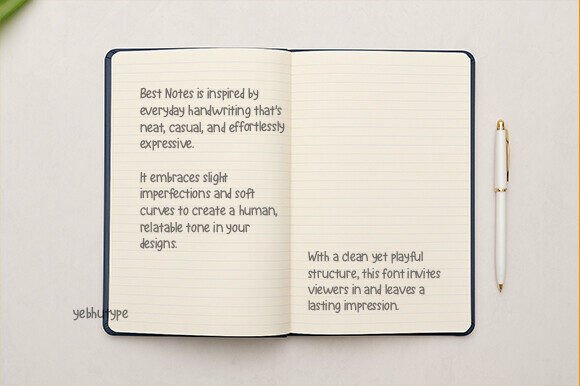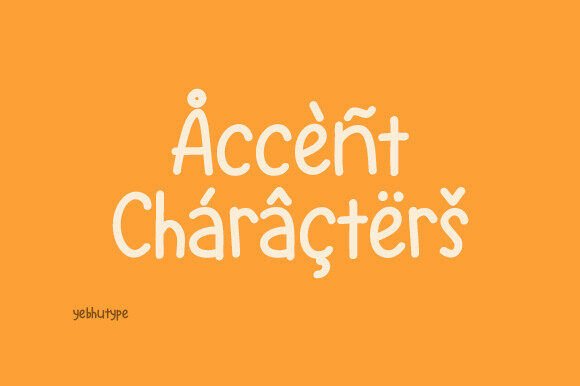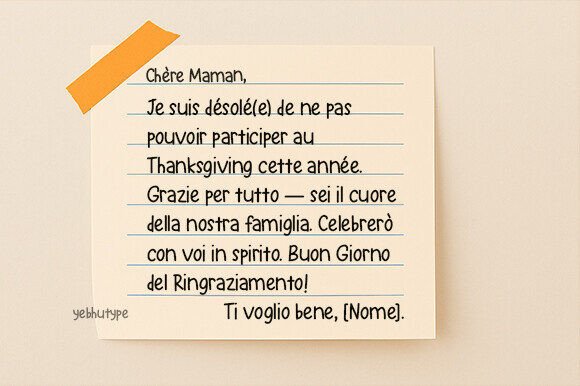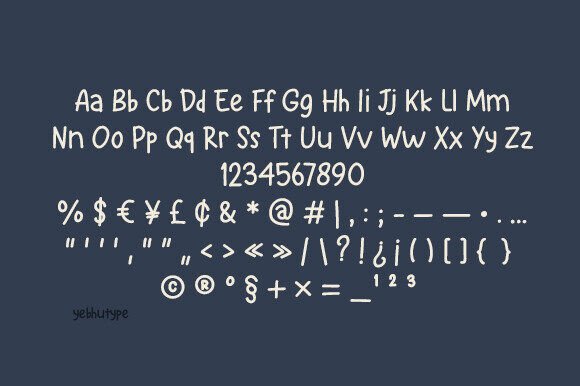
Best Notes Font: Where Friendly Simplicity Meets Handwritten Joy
Introducing Best Notes Font, a cheerful handwritten typeface designed to bring warmth, clarity, and personality into every word. With its rounded letterforms and playful rhythm, Best Notes captures the spirit of handwriting—natural, approachable, and full of heart. More than just a font, Best Notes is your creative companion. It makes any message feel personal, sincere, and fun—whether you’re creating educational content, crafting DIY projects, or branding something uniquely yours.
The Essence of Best Notes Font
Best Notes is inspired by everyday handwriting that’s neat, casual, and effortlessly expressive. It embraces slight imperfections and soft curves to create a human, relatable tone in your designs. With a clean yet playful structure, this font invites viewers in and leaves a lasting impression.
Key Features of Best Notes Font
- ✏️ Handwritten and Friendly: Every letterform mimics real handwriting—smooth, bouncy, and full of character—to create a genuine and approachable feel.
- 📝 Perfect for Notes and Journals: The font’s friendly and simple design makes it ideal for notes, journals, and any place where you want your words to feel personal and heartfelt.
- 🎨 Versatile and Creative: From educational materials to DIY projects, Best Notes adds a touch of warmth and personality to all your creative endeavors.
- đź‘€ Easy to Read: Despite its playful nature, Best Notes remains clear and legible, ensuring your message is always understood.
Why Choose Best Notes Font?
In a world where digital communication often feels cold and impersonal, Best Notes Font offers a refreshing alternative. Its handwritten charm brings a sense of authenticity and connection to your words, making your content feel more like a personal conversation than a mass message.
Applications of Best Notes Font
Best Notes Font is incredibly versatile, making it suitable for a wide range of applications:
- Education: Create engaging and relatable educational materials, such as worksheets, activity sheets, and classroom posters.
- DIY and Crafting: Add a personal touch to your DIY projects, like labels, planners, and journal entries.
- Branding: Use Best Notes to give your brand a friendly, approachable voice that resonates with your audience.
- Social Media: Stand out on social media with eye-catching, heartfelt posts and stories.
Tips for Using Best Notes Font
To get the most out of Best Notes Font, consider the following tips:
- Pair with Other Fonts: Combine Best Notes with complementary fonts for a dynamic look.
- Experiment with Colors: Use different colors to match your brand or project theme.
- Mix with Graphics: Pair the font with illustrations or graphics for a more engaging design.
Best Notes Font is more than just a typeface—it’s a way to infuse your words with warmth, personality, and a touch of handwriting magic. Whether you’re a designer, educator, or crafter, this font offers the perfect blend of simplicity and charm. Try Best Notes Font today and let your words come alive with a friendly, handwritten touch!